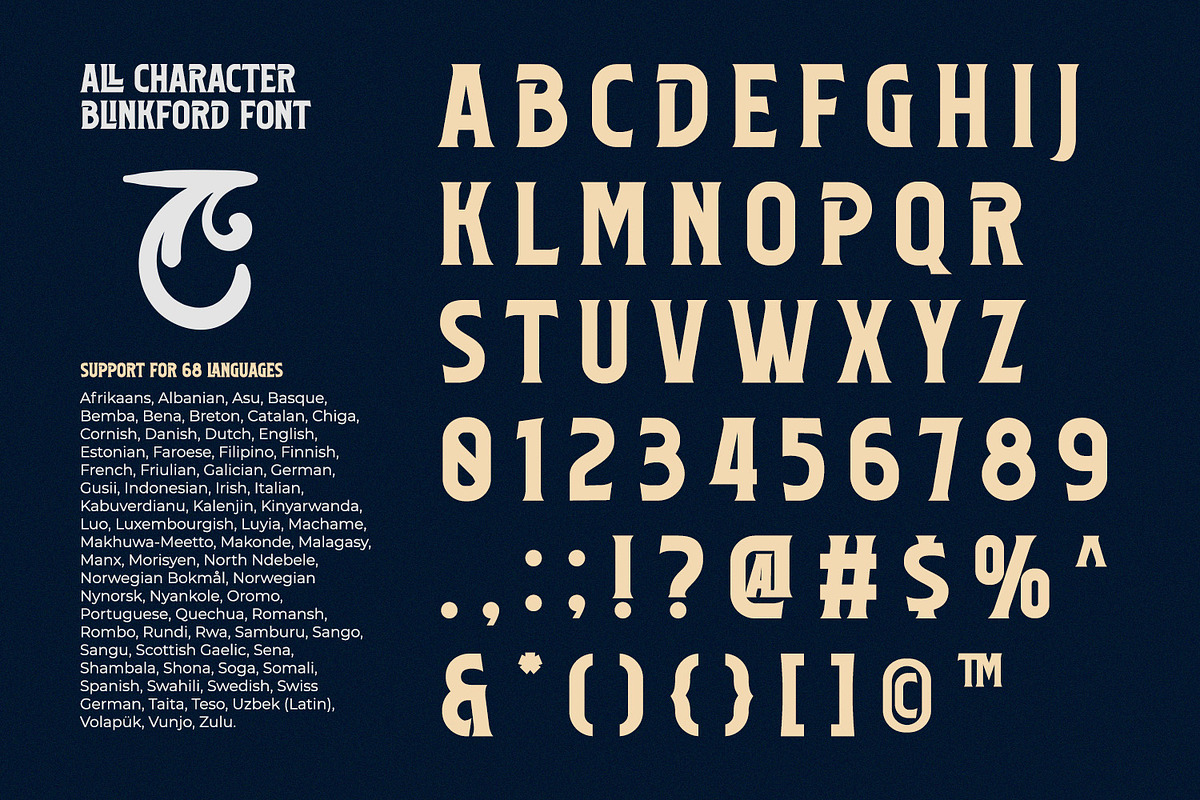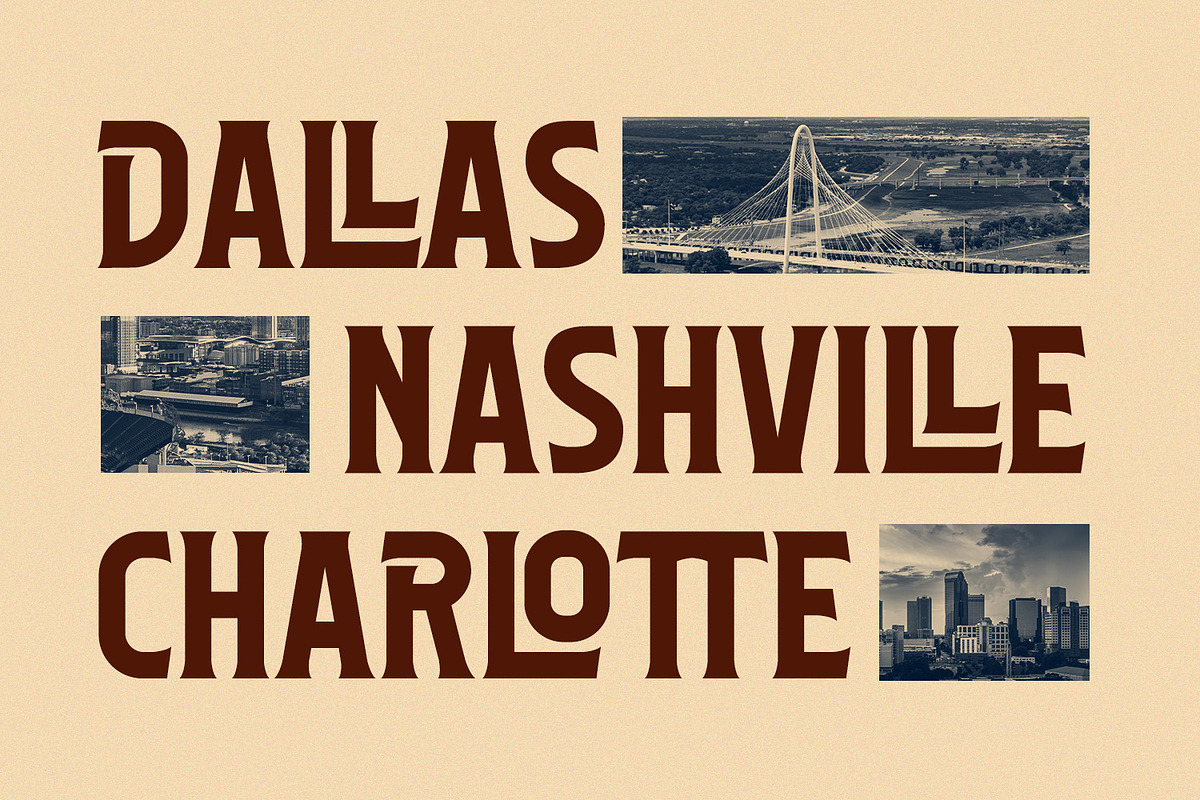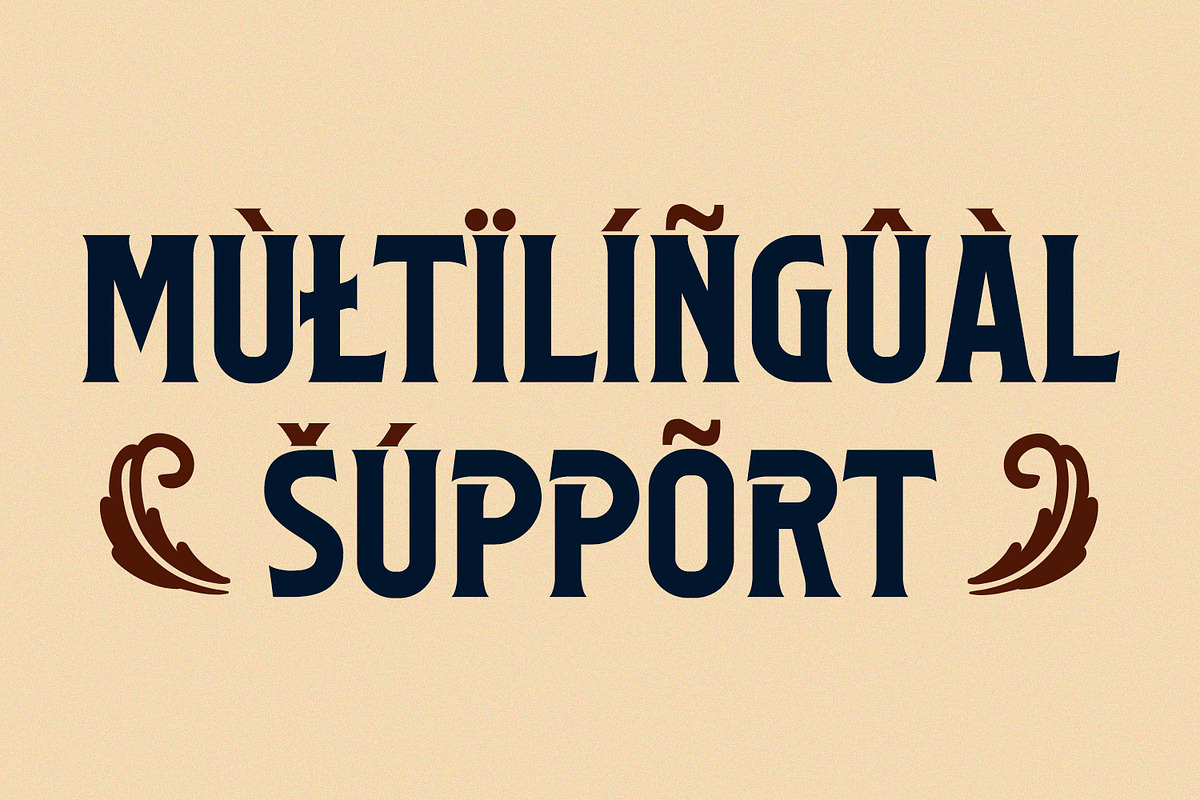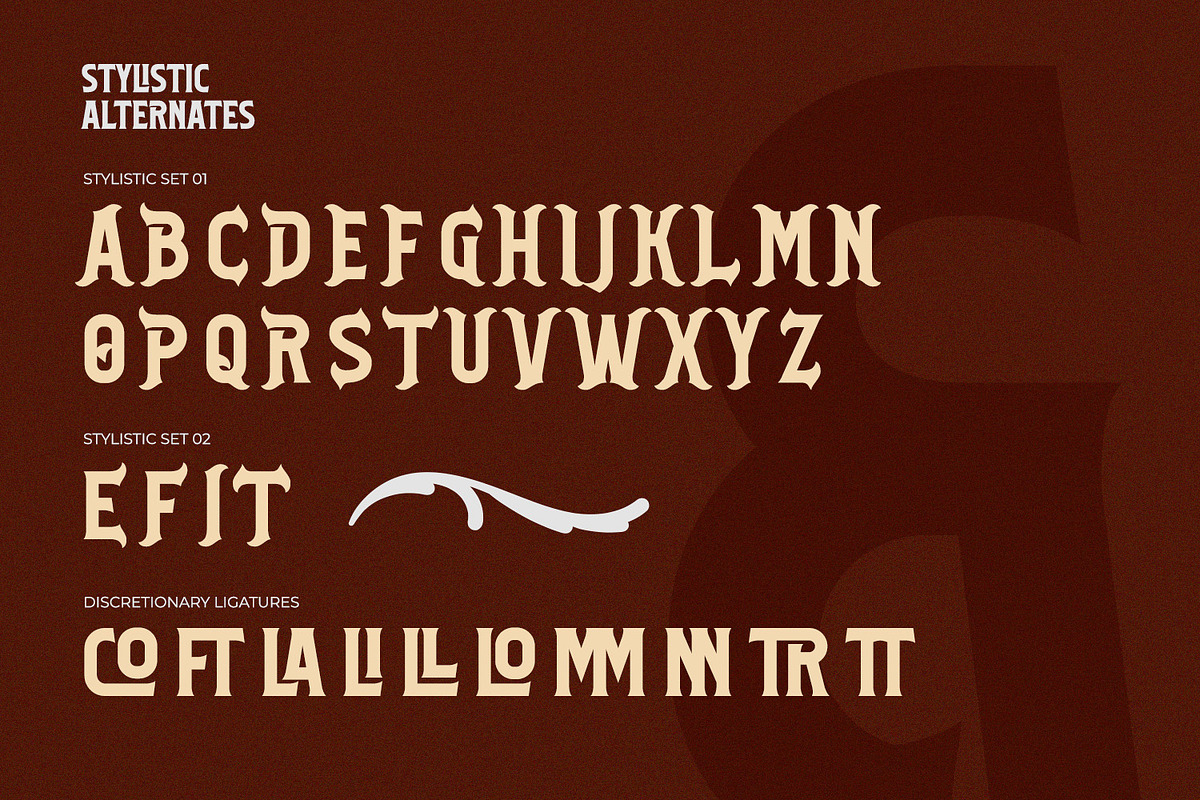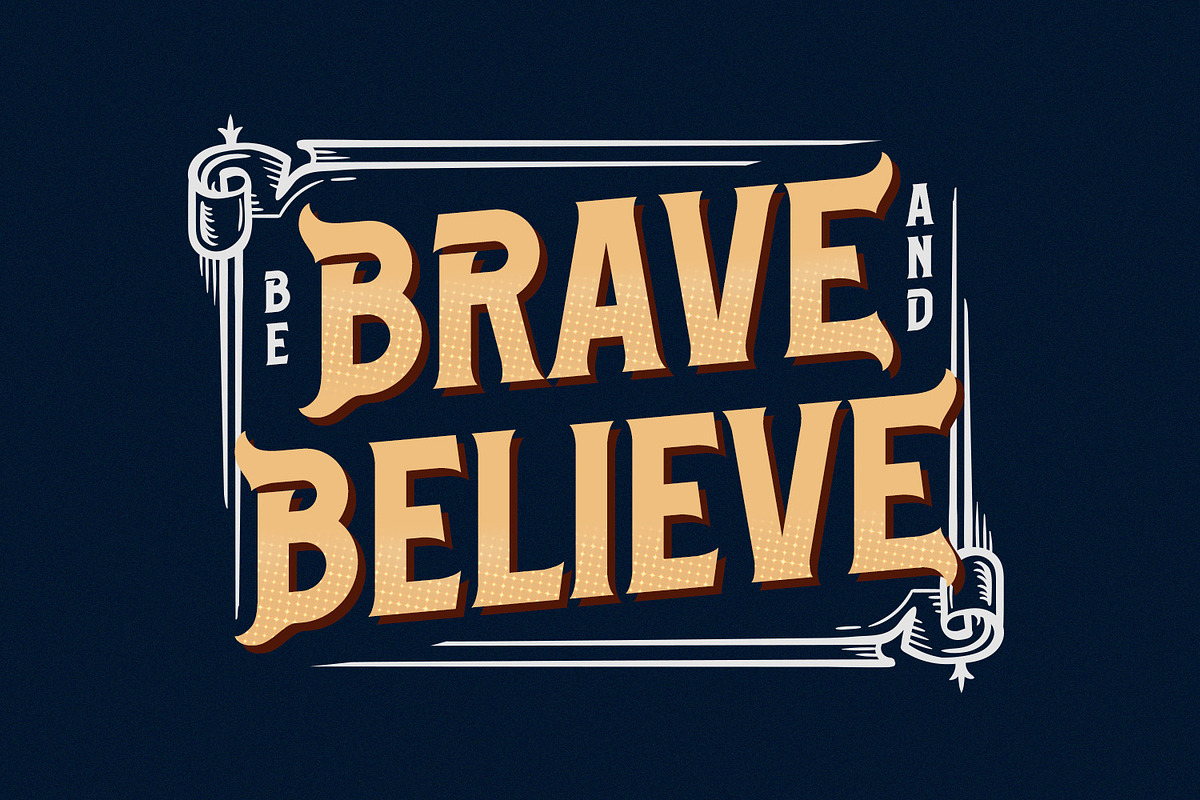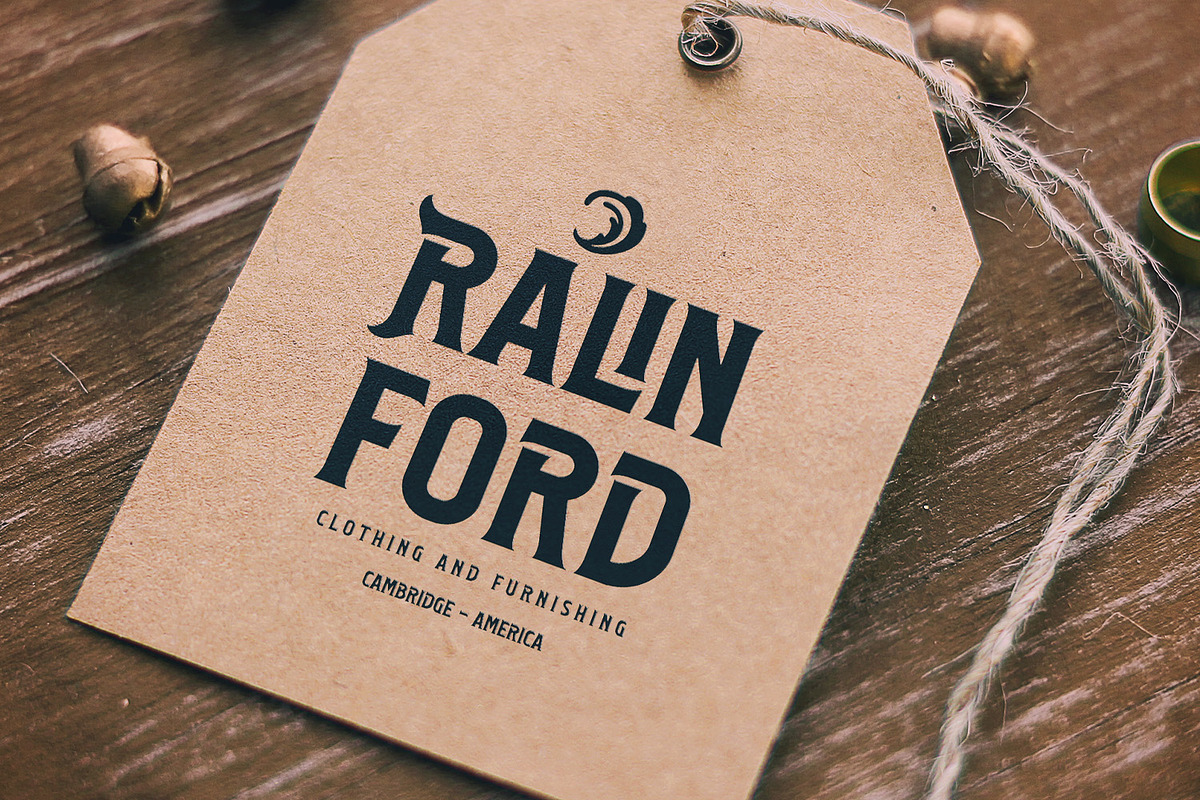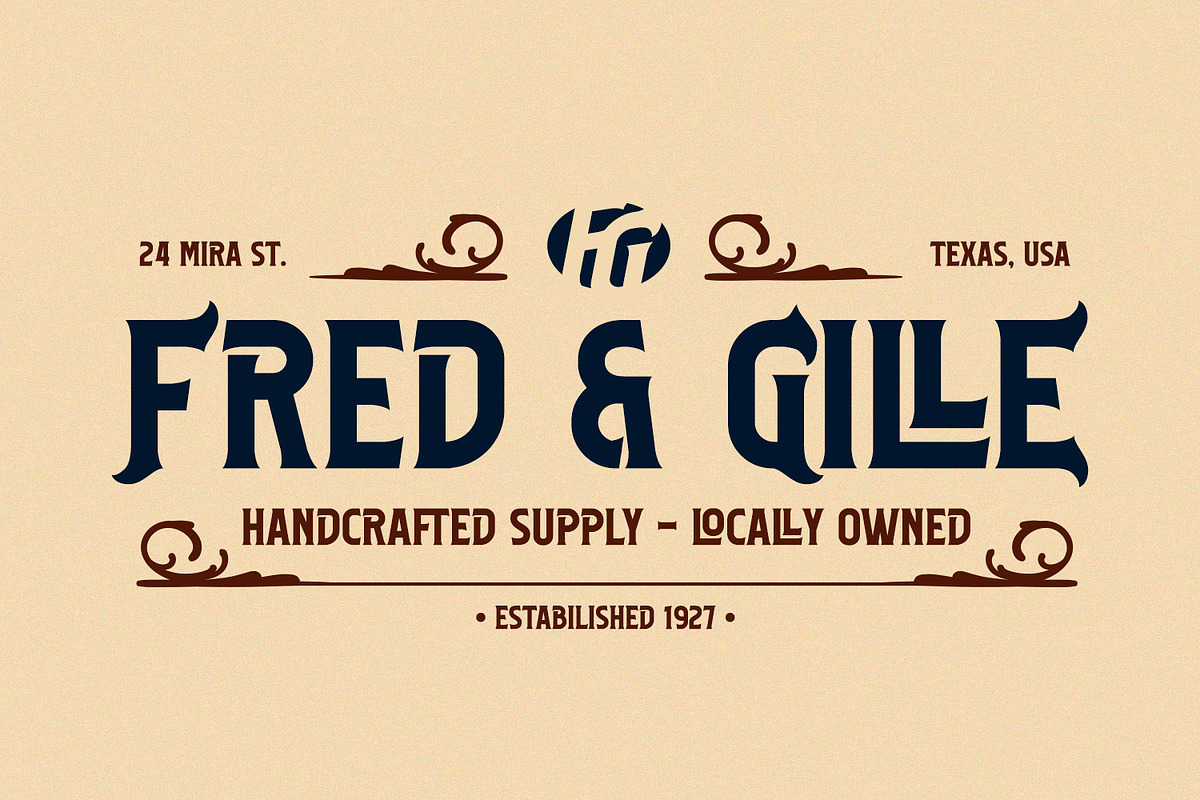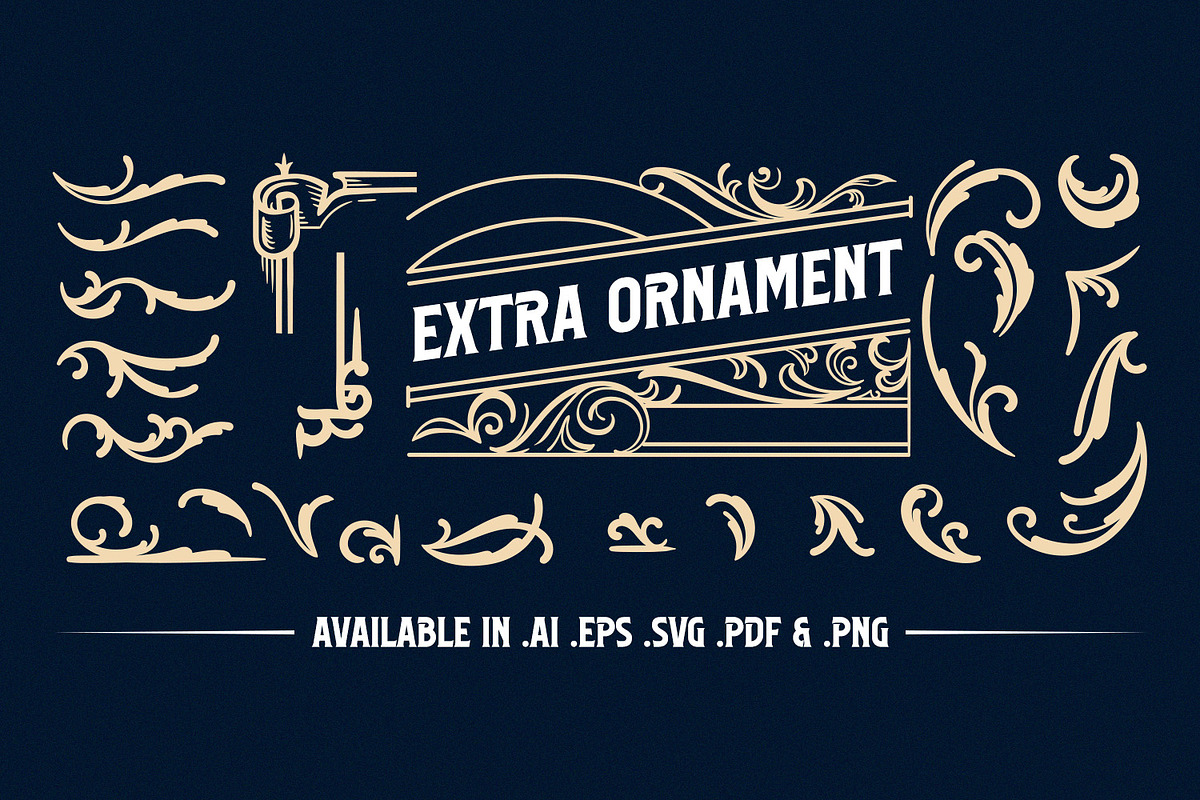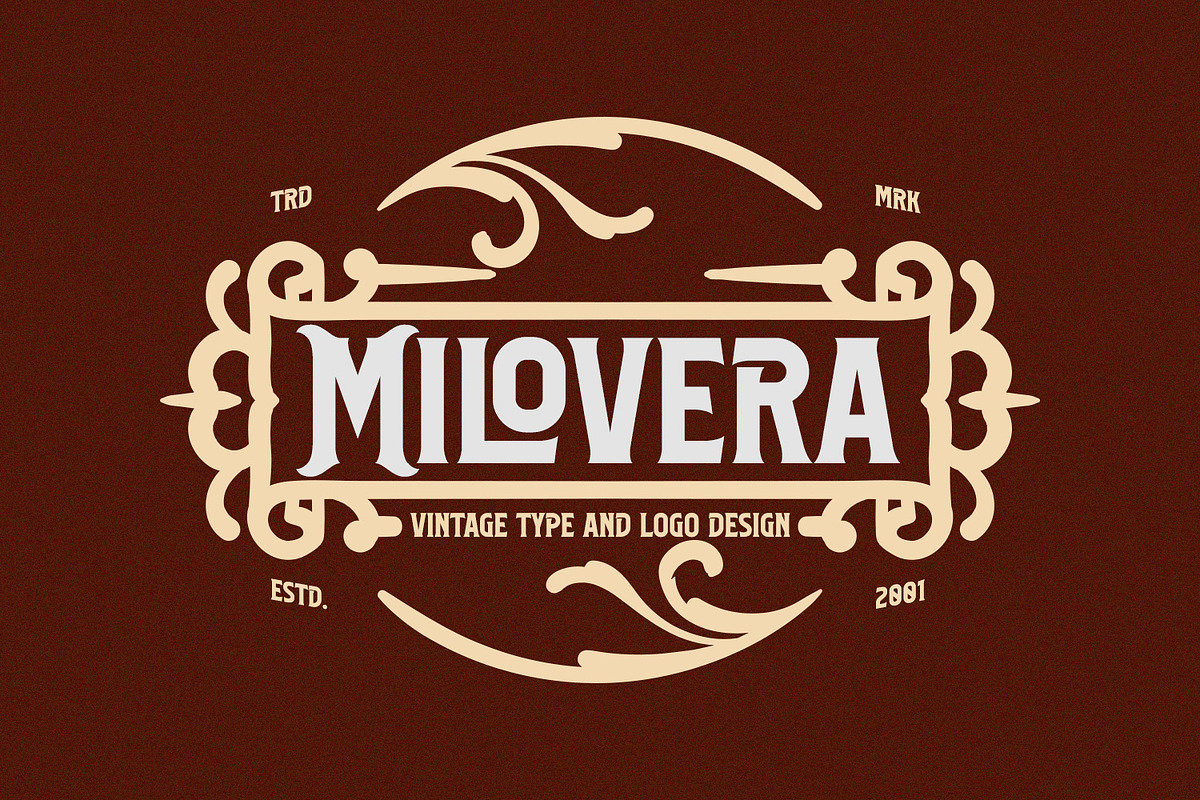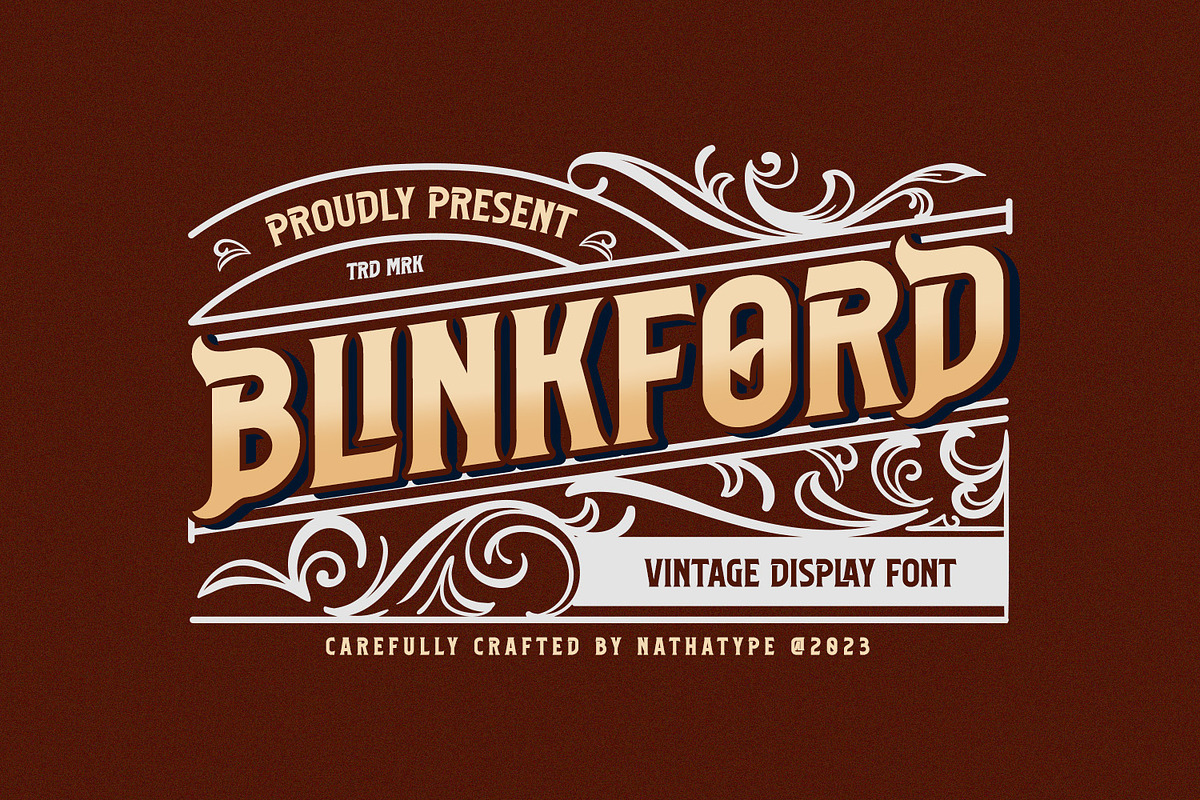
Blinkford
Step back in time and embrace the nostalgic allure of Blinkford, a captivating uppercase display font that transports you to an era of timeless elegance and vintage charm. With its bold, heavyweight design and generous spacing, Blinkford embodies classic sophistication. Each uppercase letter in Blinkford is a testament to the past, meticulously crafted to exude the essence of vintage style. The characters are bold and robust, evoking a sense of grandeur and prominence that harks back to a bygone era. The generous spacing in this font is designed to give your text room to breathe. This open layout enhances legibility and imparts a sense of spaciousness that is characteristic of vintage typography. As a special bonus, this font includes ornaments. Furthermore, enjoy the features here.
- Stylistic Sets
Blinkford fits in headlines, logos, posters, flyers, branding materials, print media, editorial layouts, and many more. Find out more ways to use this font by taking a look at the font preview.